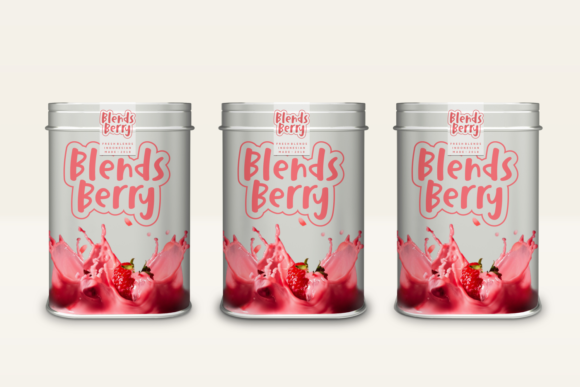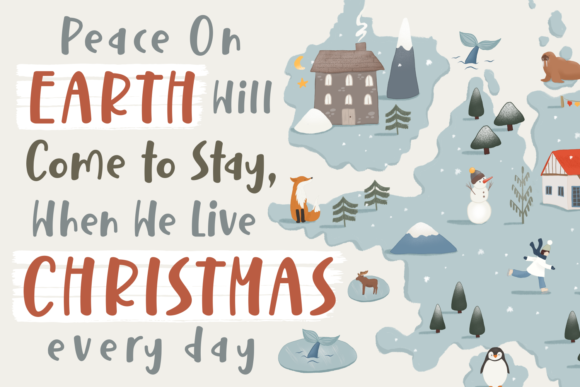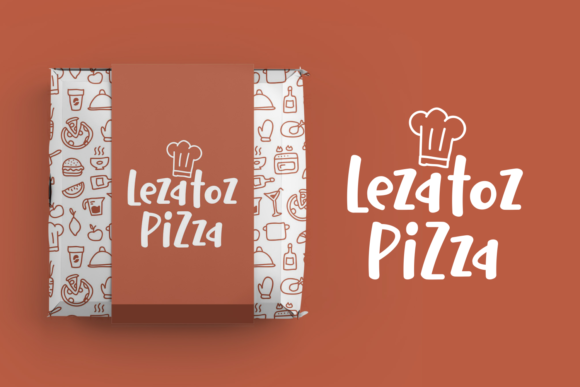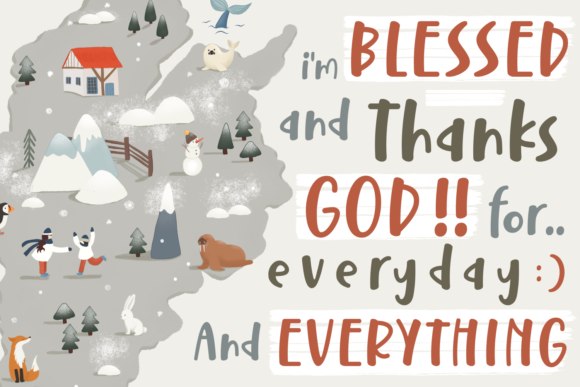
Introduction to Nathals Font
Have you ever been working on a creative project and desperately needed the perfect font to give it that extra oomph? You know, the one that will make your design stand out from the crowd and leave a lasting impression on your audience? Well, I’m excited to share with you a game-changing design resource that’s about to become your new go-to – the Nathals Font.
With its bold, whimsical script letters and perfect readability, the Nathals Font is a high-quality addition to any design project. Whether you’re working on a branding project, a social media campaign, or simply a fun design for personal use, this font is sure to add a unique and playful touch to your work. And the best part? You can download it for free with a transparent background, making it easy to integrate into your design.
Key Features of Nathals Font
- High-quality font with a transparent background, making it ideal for creative projects.
- Includes a comprehensive set of characters, including uppercase and lowercase letters, numbers, and symbols.
- Unique characteristics: Nathals Font features a modern and elegant design, making it perfect for branding, logos, and typography-based designs.
Honest Review: Nathals Font
Nathals Font is a great addition to any designer’s toolkit. I’ve been using it for a creative project and I must say, it’s been a game-changer. The font is available as a free download, which is a huge plus for designers on a budget.
What works well: ✨ The font is highly legible, even at small sizes, making it perfect for body text and headings. The transparent background option is also a nice touch, allowing for easy integration with any design. The high quality of the font is evident in its smooth curves and crisp lines.
Some limitations: ⚠️ The font library is relatively small, which may limit its use for more complex design projects. Additionally, the font may not be suitable for use in situations where a more formal or traditional look is required.
Overall, I’m impressed with Nathals Font. It’s a solid design resource that can add a touch of elegance to any creative project. If you’re looking for a high-quality, free font, Nathals Font is definitely worth checking out.
- Highly legible, even at small sizes
- High quality, smooth curves and crisp lines
Nathals Font
Getting the Most Out of Nathals Font
To get the most out of Nathals Font, use it in a creative project that requires a high-quality, unique design. This font is perfect for a design resource that needs a touch of elegance and sophistication. Remember to use the font in a way that complements your design, rather than overpowering it.
Nathals Font is commonly used in wedding invitations, branding materials, and other design projects that require a touch of luxury and sophistication. It’s also a great font to use in a design project that requires a transparent background, such as a logo or icon.